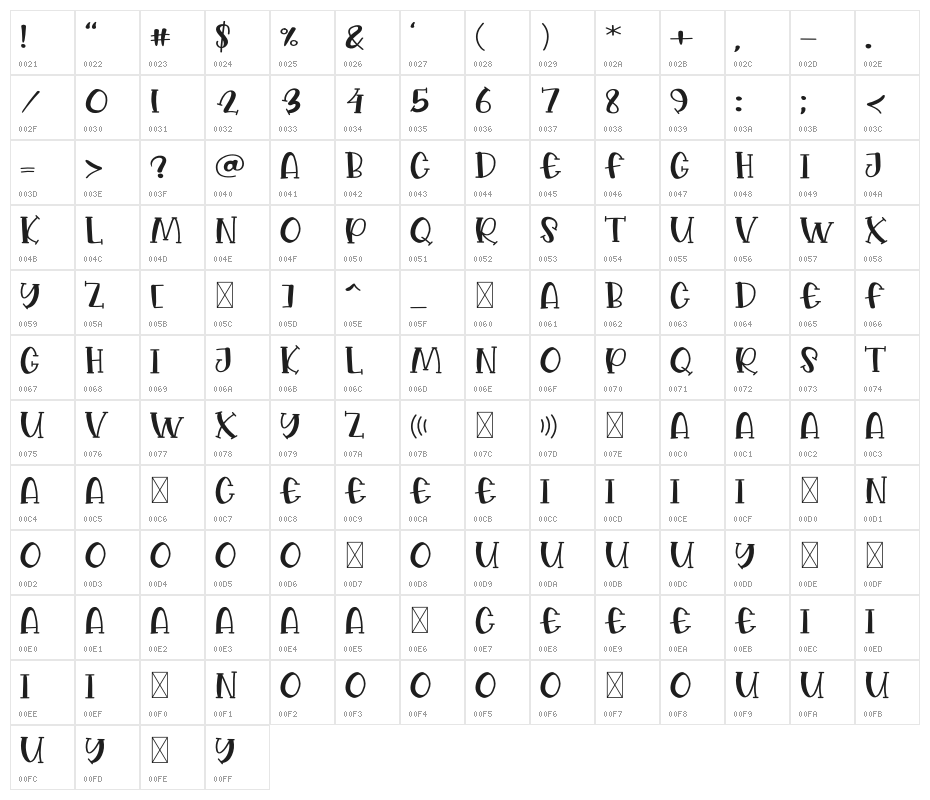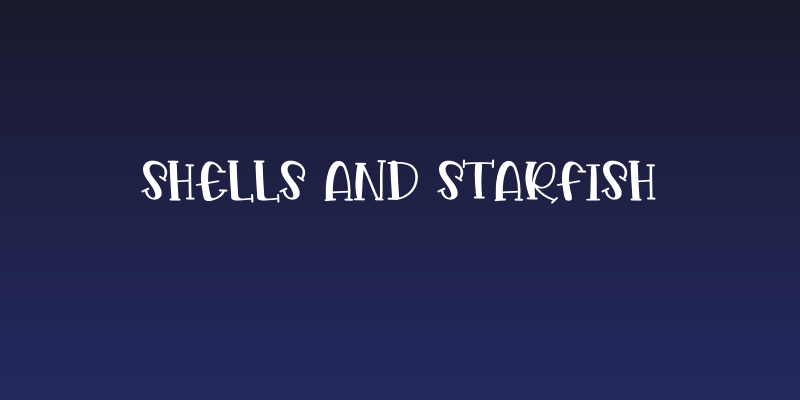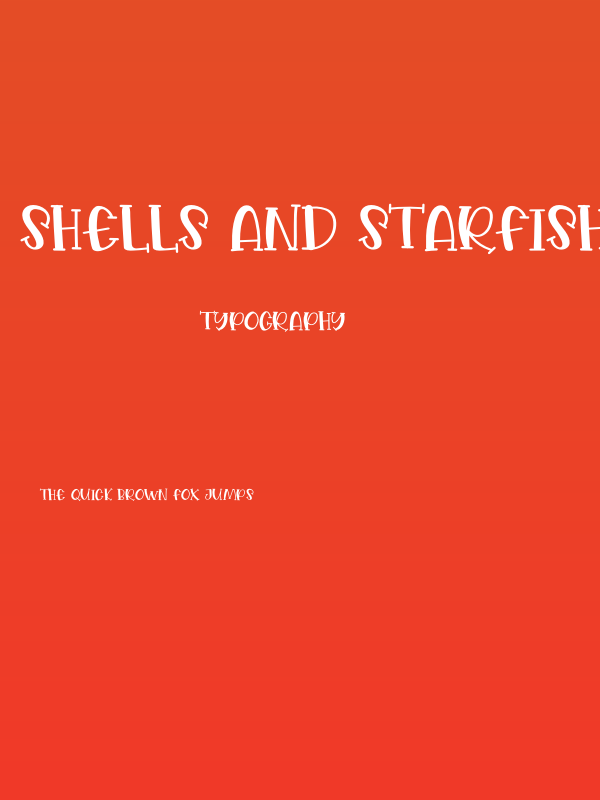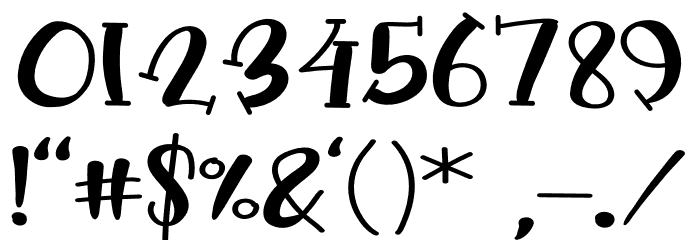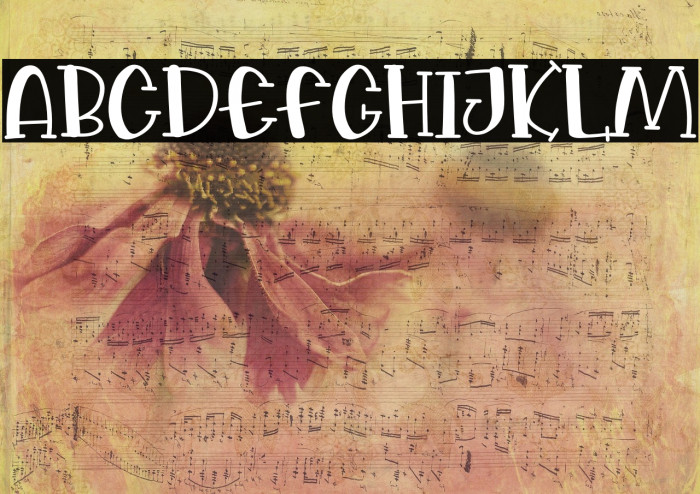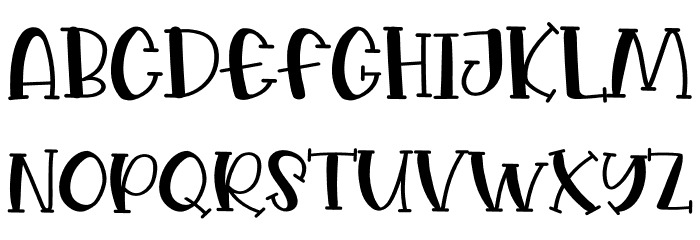
Shells And Starfish Font
Shells And Starfish Description
This font features a playful and whimsical design, characterized by its unique and decorative letterforms. The strokes are bold and slightly irregular, giving it a hand-drawn appearance. The uppercase and lowercase letters maintain a consistent style, with exaggerated curves and playful serifs that add to its charm. The numbers and special characters follow the same design principles, ensuring a cohesive look across all glyphs. This font is ideal for projects that require a fun and engaging aesthetic, such as children's books, invitations, or branding for creative businesses.
| Overall Style | Whimsical, Playful, Decorative |
| Proposed Projects | Ideal for children's books, creative branding, invitations, and playful design projects. |